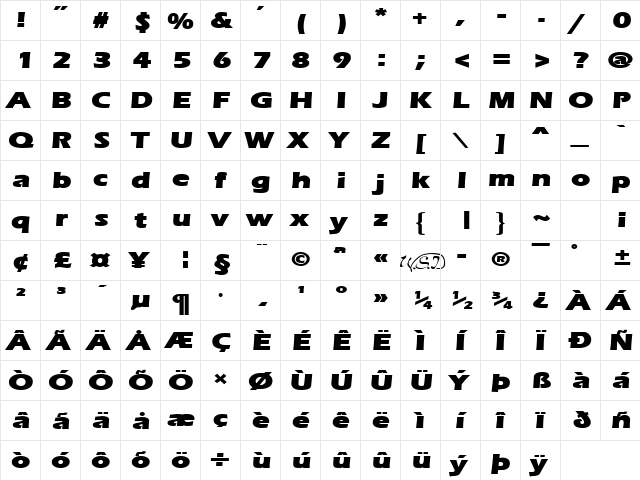
Ergoe-Mild Black Expanded Regular
Design Context for Ergoe-Mild Black Expanded Typeface
Ergoe-Mild Black Expanded offers clean, dependable letterforms without strong stylistic allegiance, making it a practical choice for designers who need flexibility.
Pro Tip: Use Ergoe-Mild Black Expanded in both headline and body roles to test its range before committing to a single application.